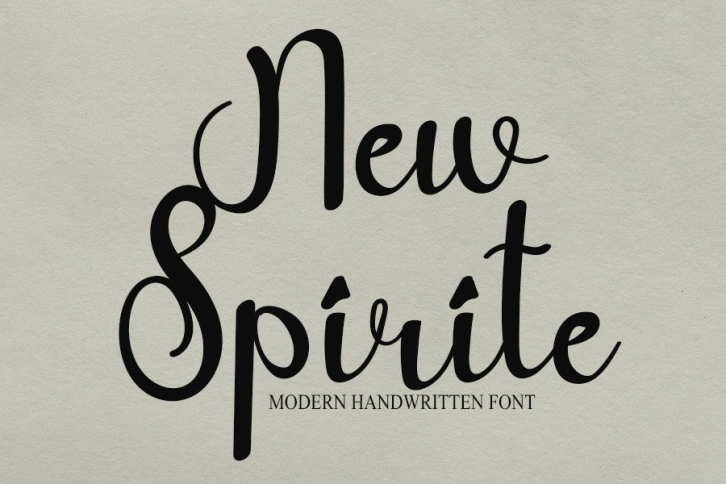
New Spirite is a friendly handwritten font, carefully designed to become a true favorite. It maintains its classy calligraphic influences while feeling contemporary and fresh.